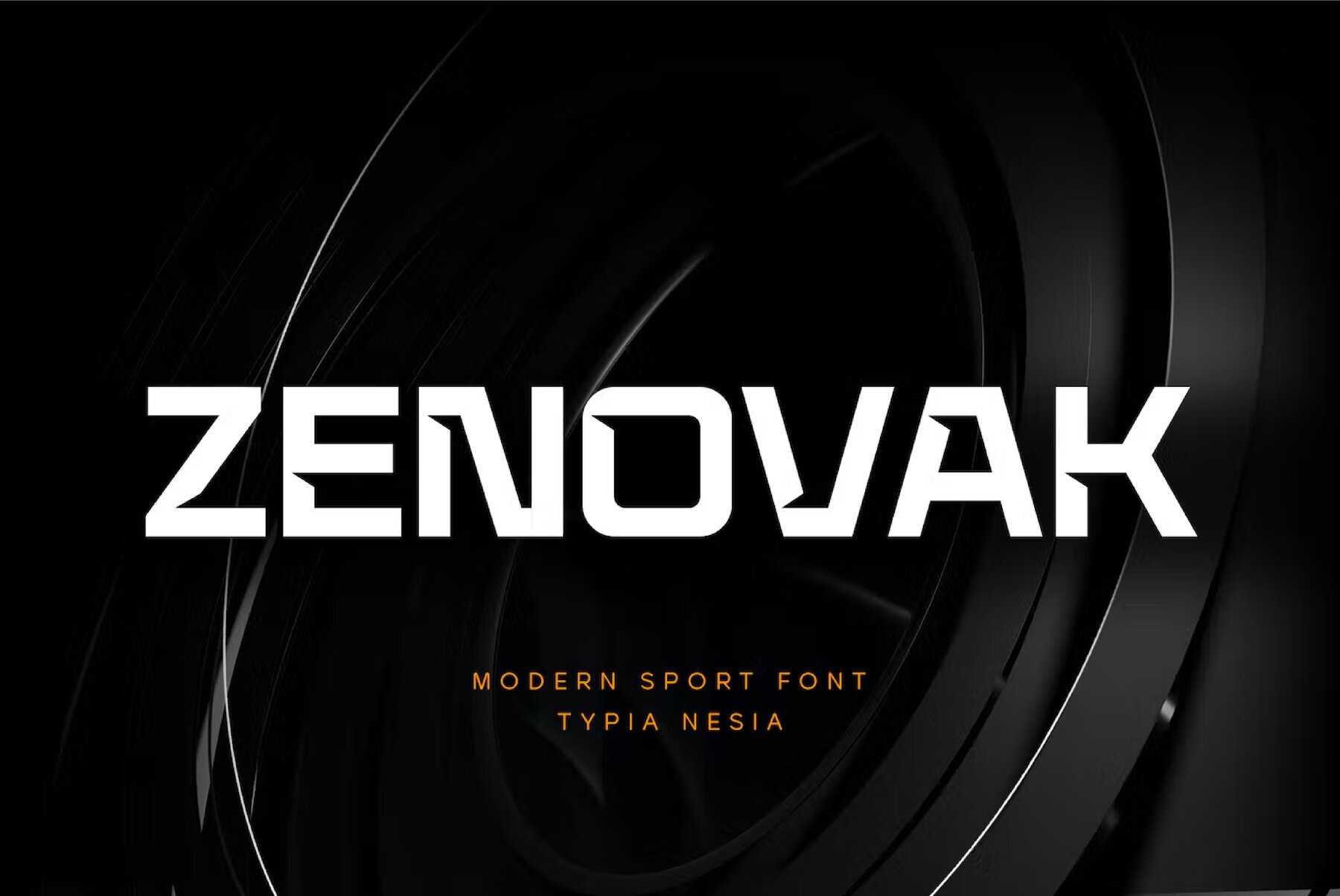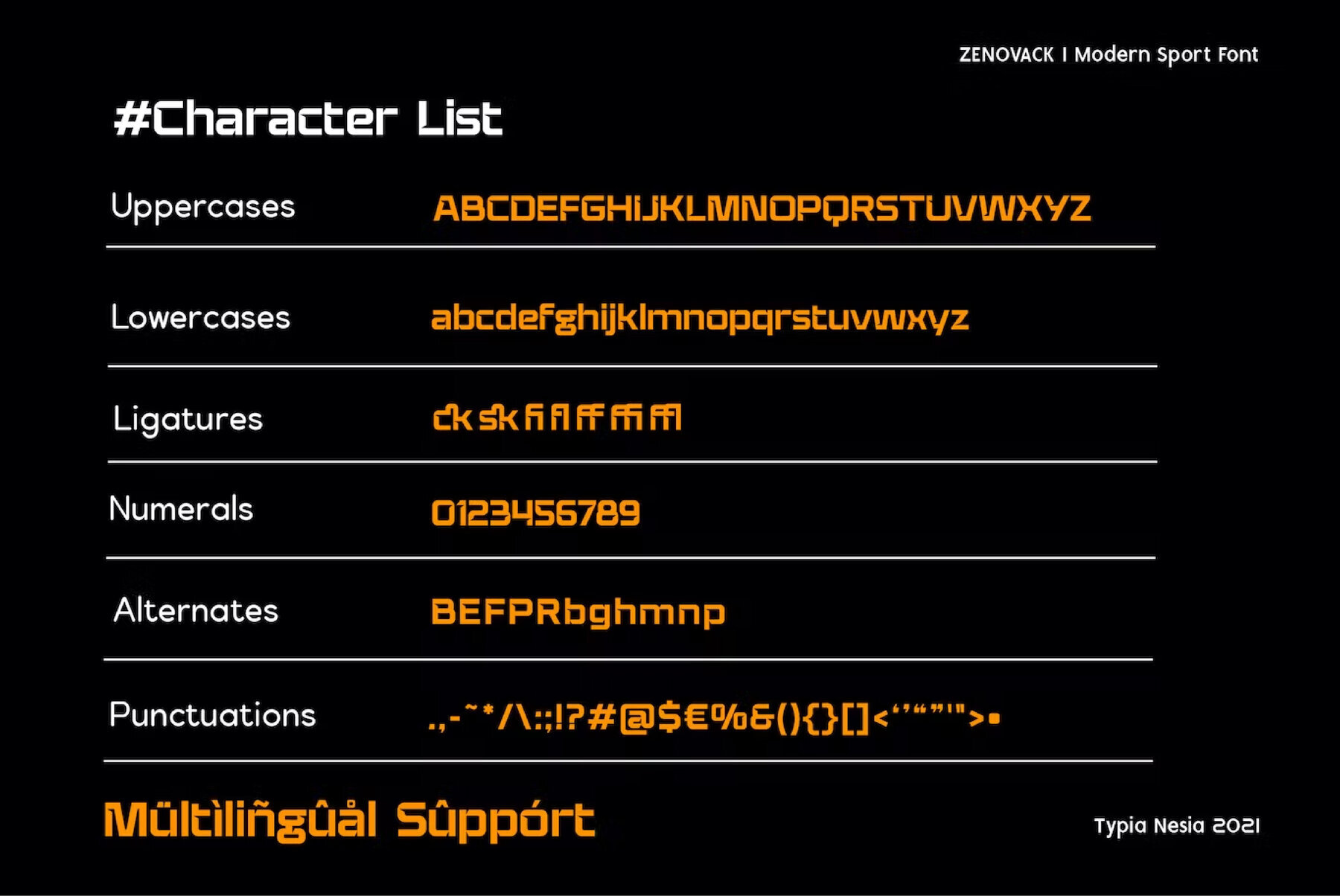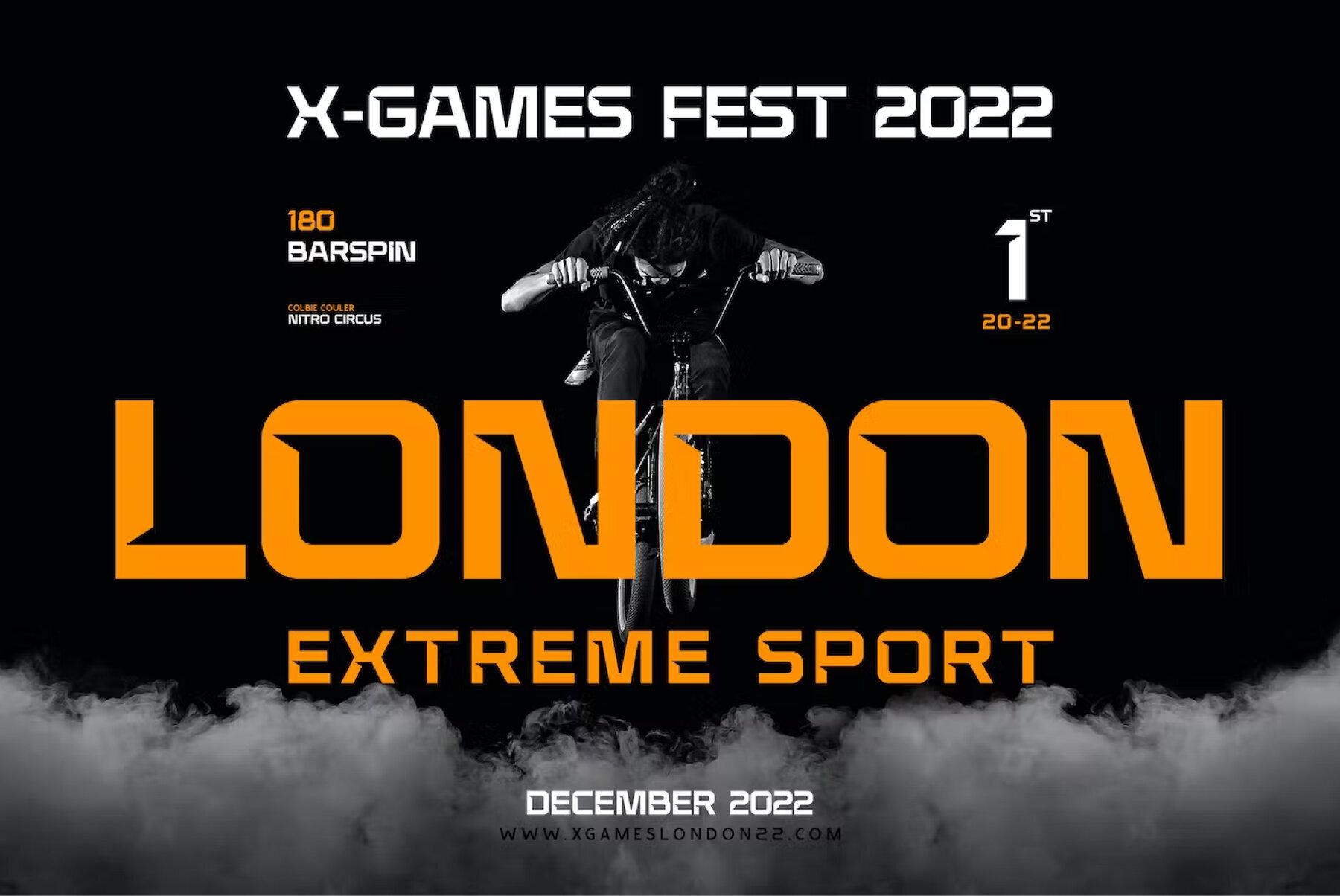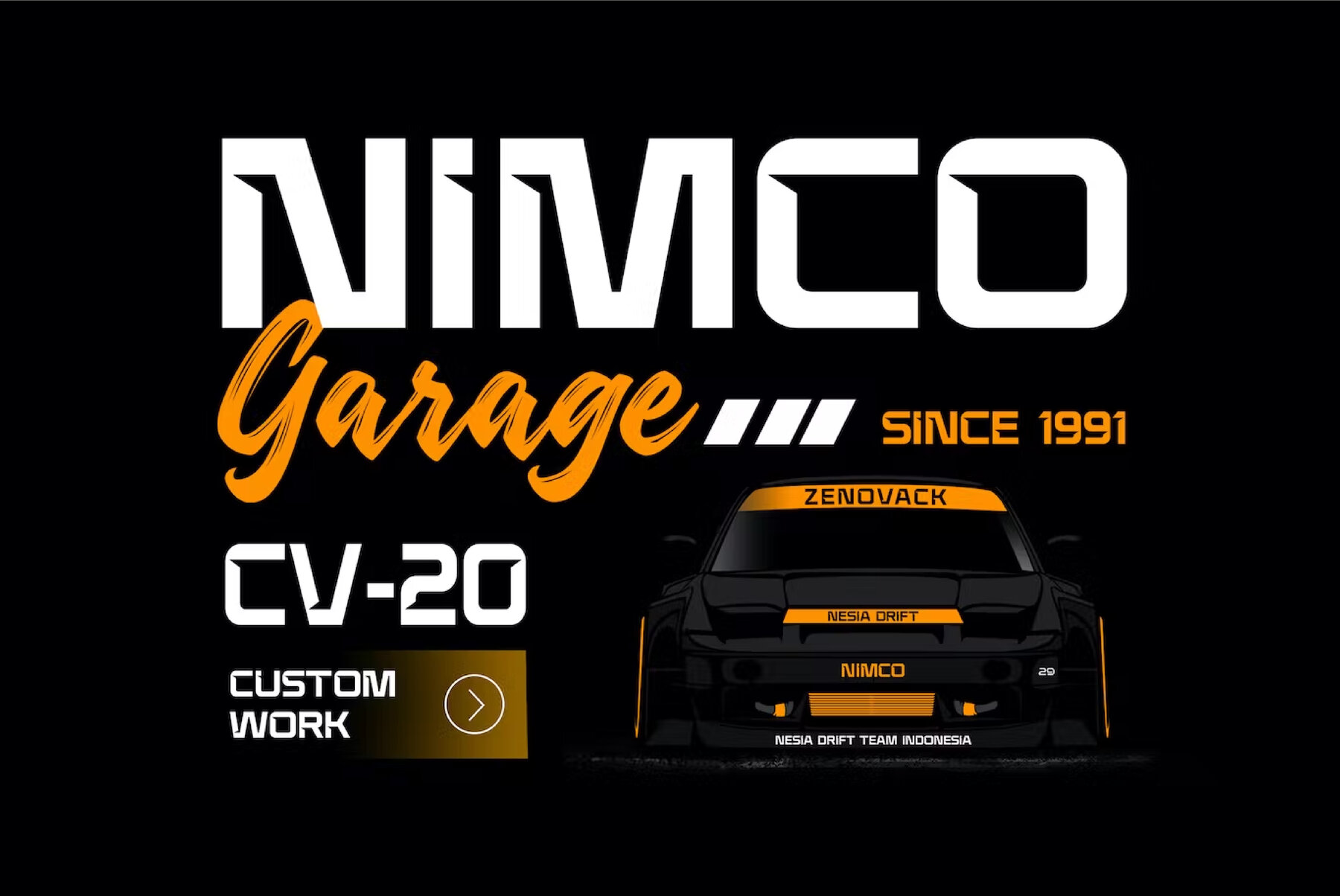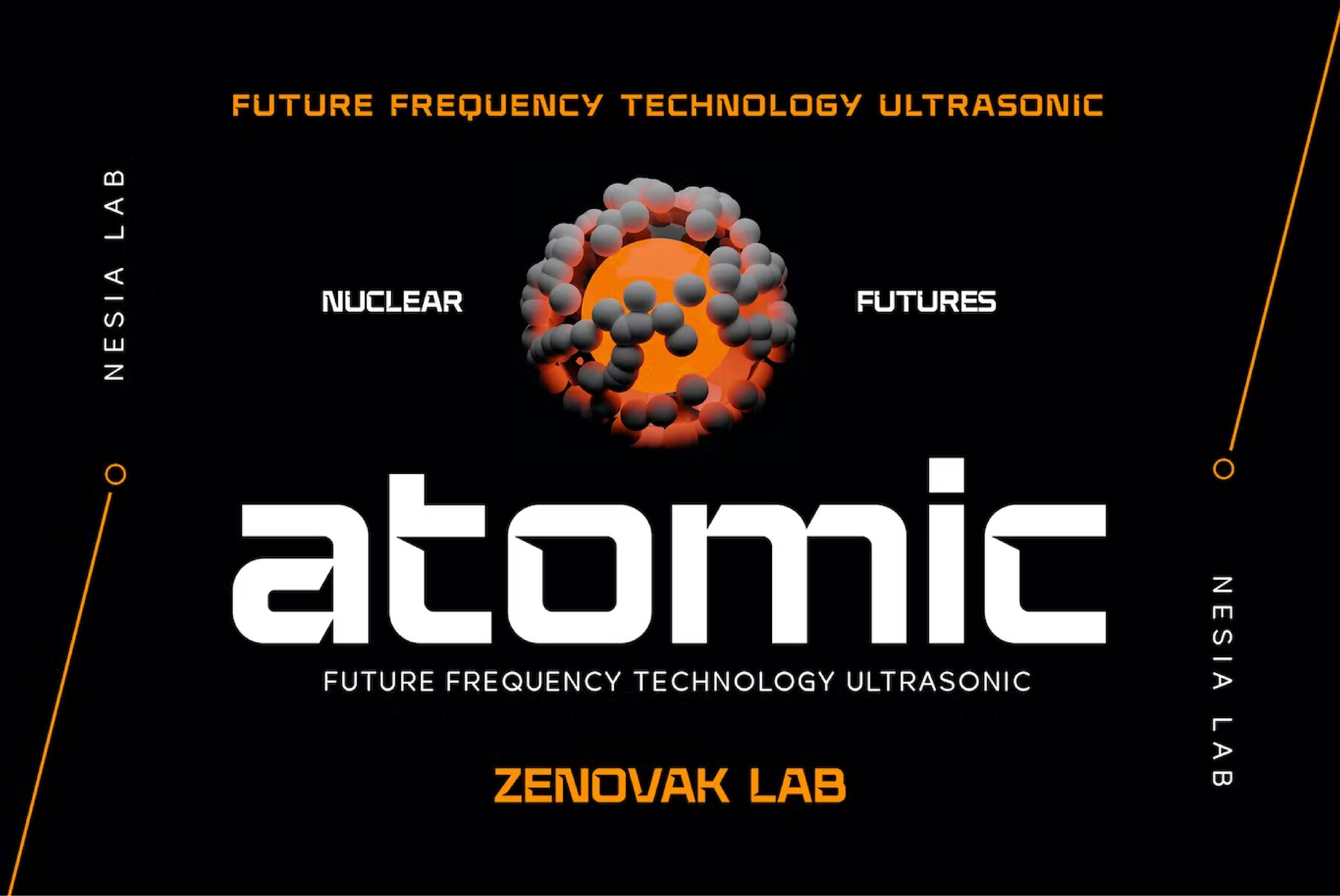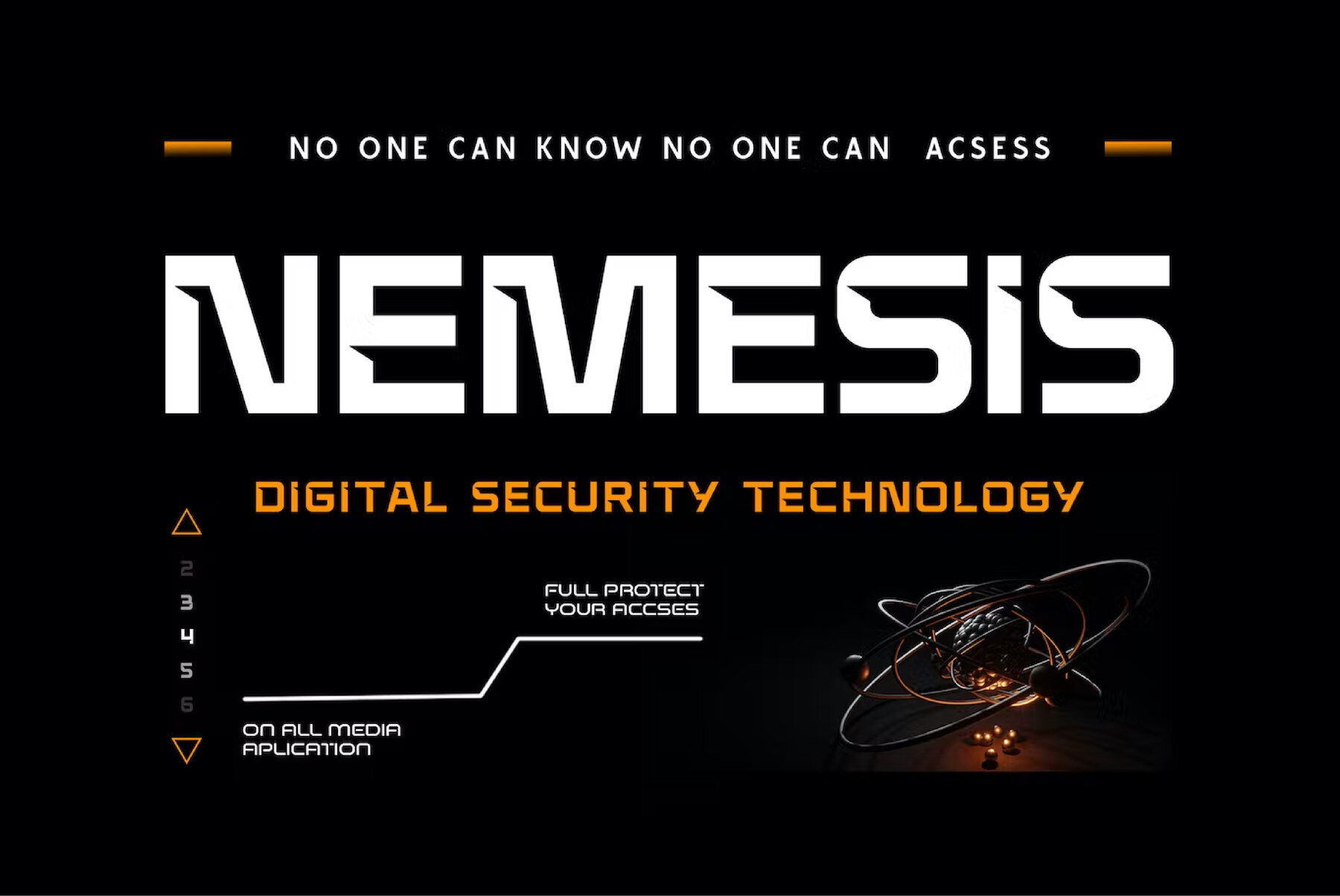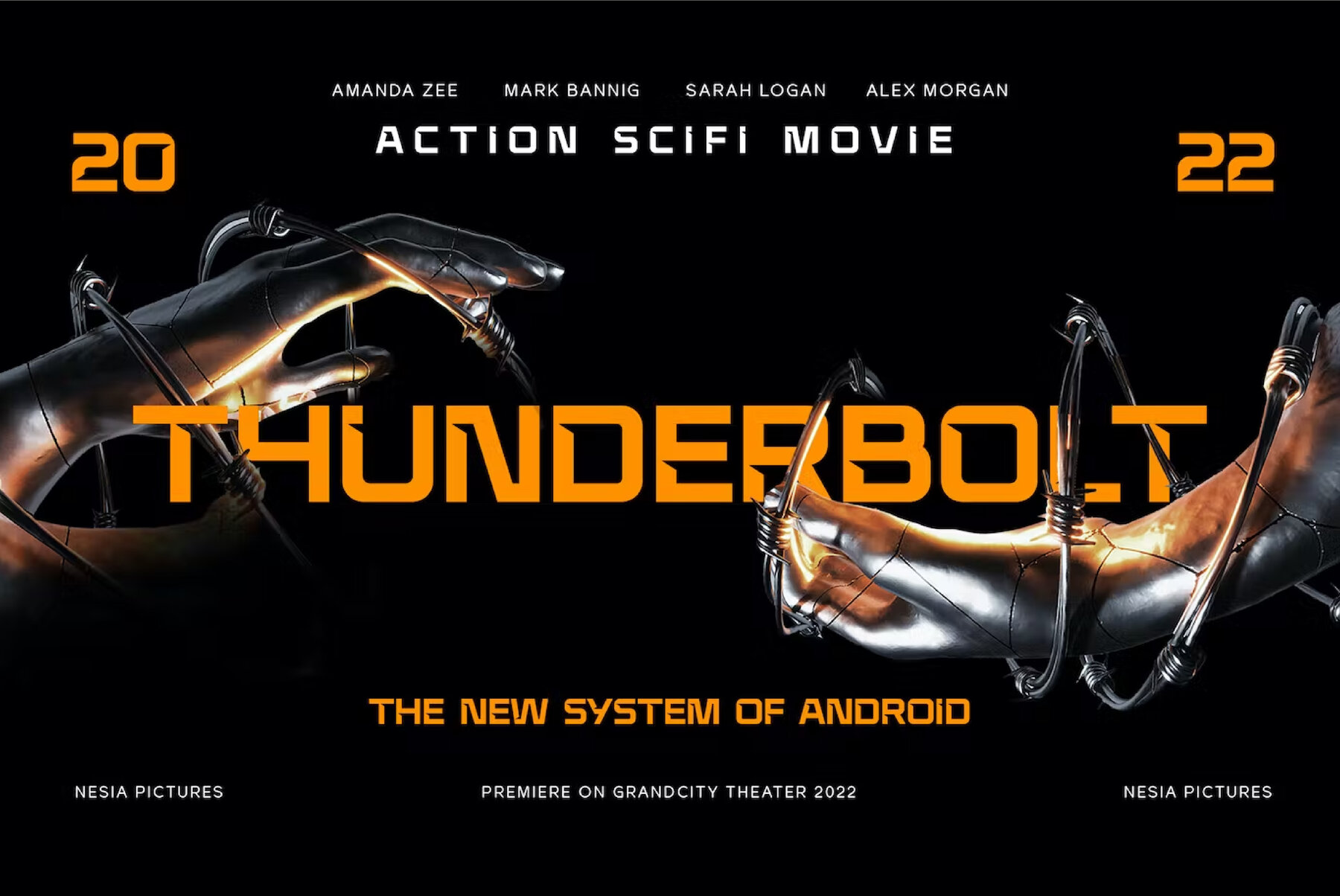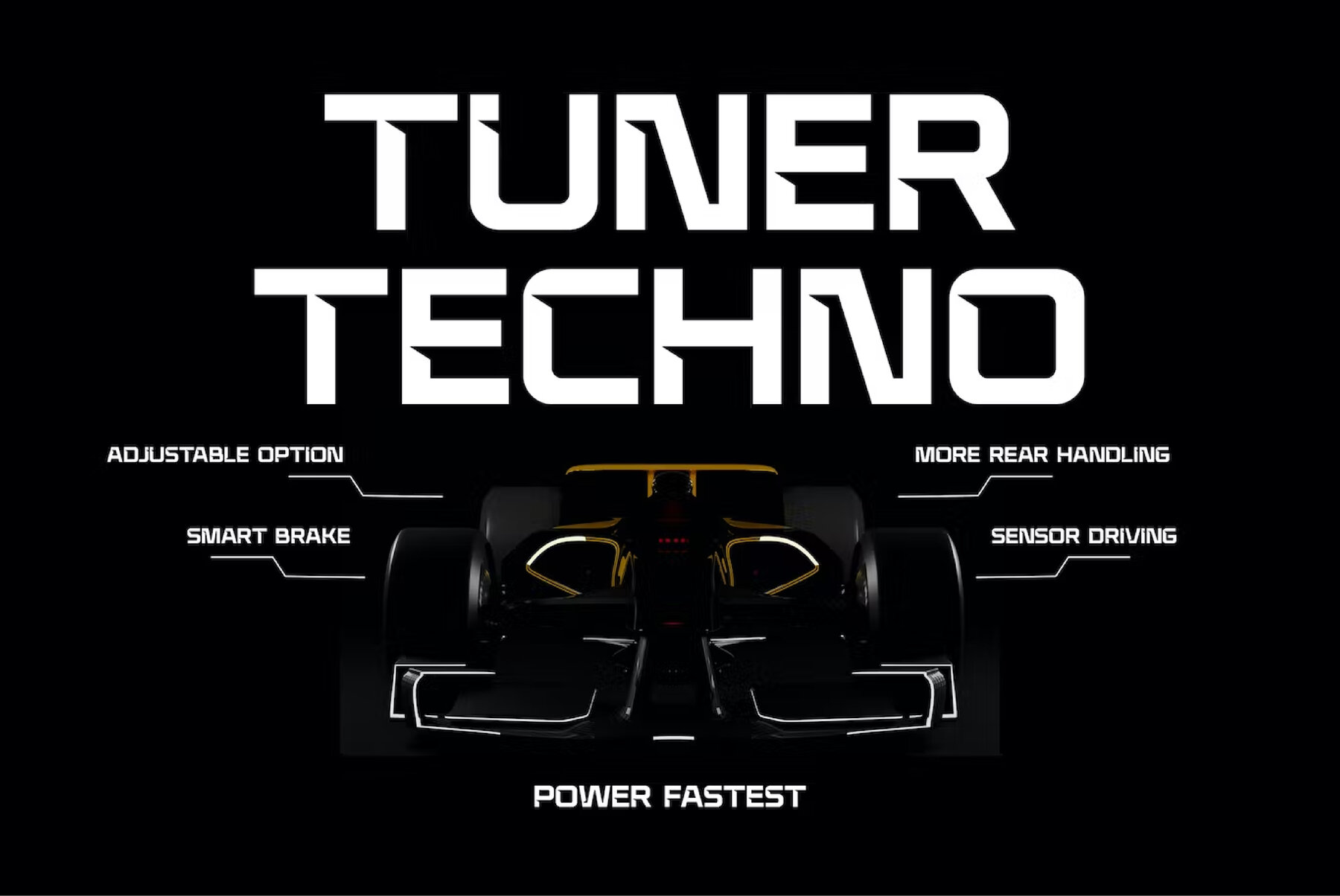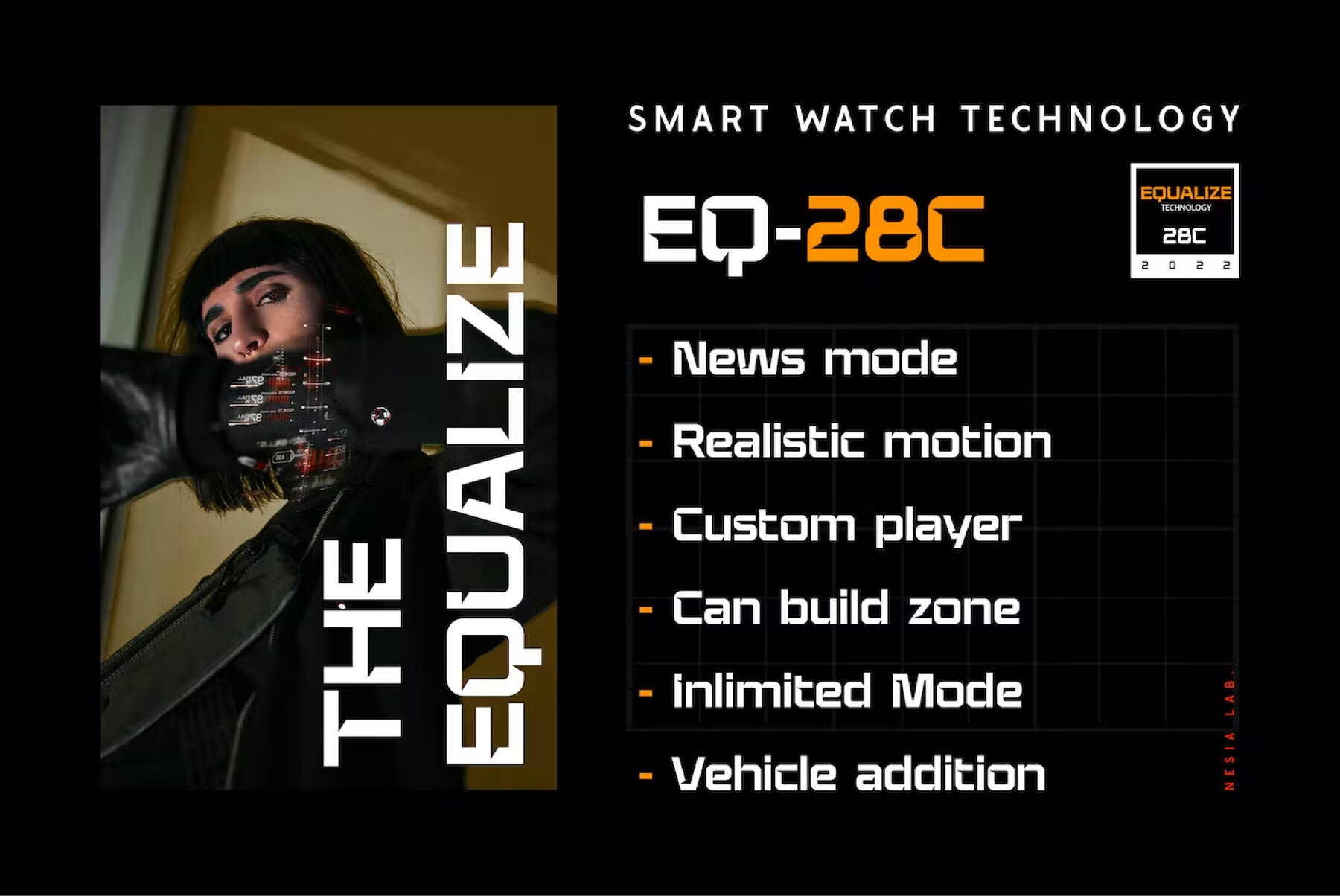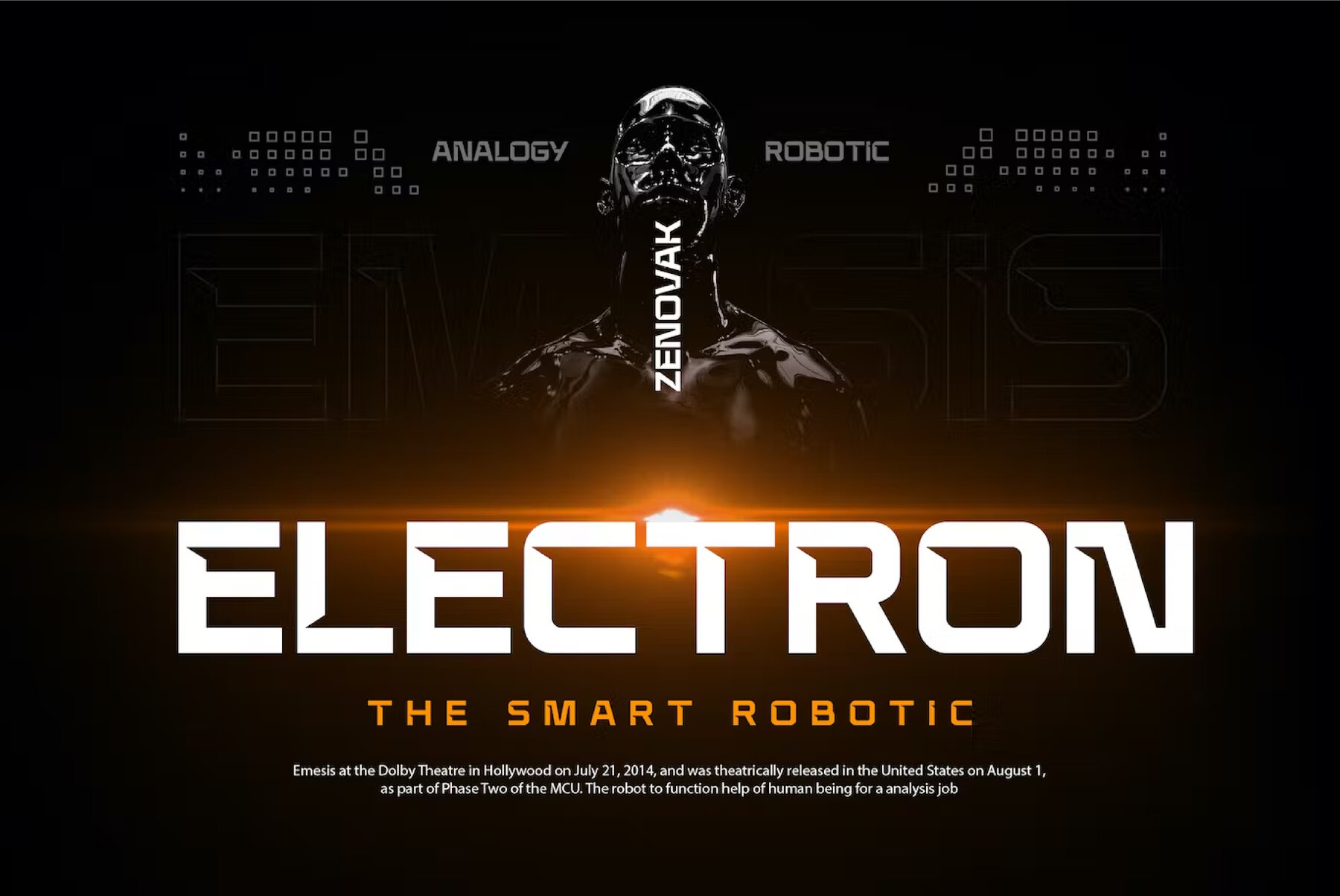
Zenovak Font
Zenovak Regular
Zenovak is a versatile sans serif display font, ideally suited for a variety of projects. From logo branding and editorial design to esports design and 80s retro themes, Zenovak offers a bold and modern touch. It's perfect for the gaming industry, sport racing, supercar branding, music posters, website design, modern advertising, poster quotes, book covers, special events, and more.Zenovak: Sport Game Sans Serif Display Font